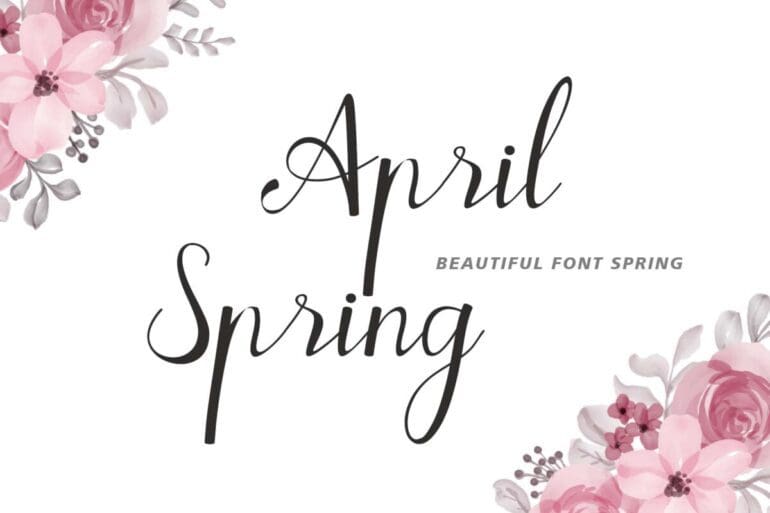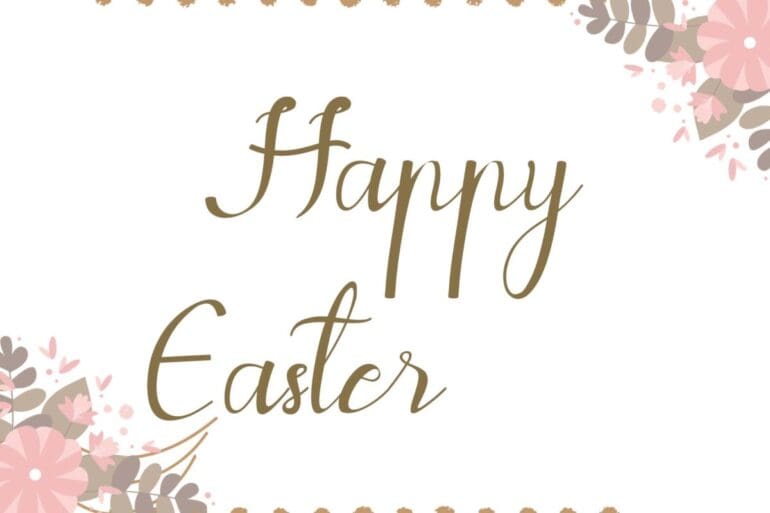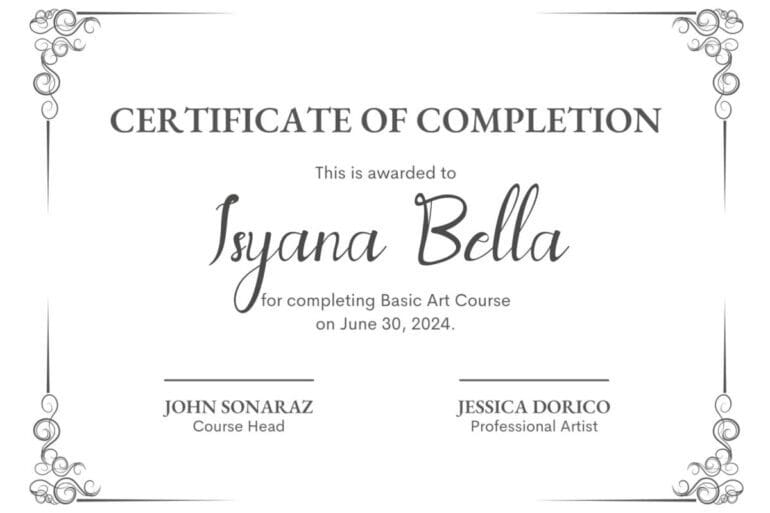
April Spring Font
April Spring is a sweet and delicate handwritten font. Dainty and joyful, this font will be ideal for writing wedding invitations, cards, or any other design that may need a romantic, personalized touch!